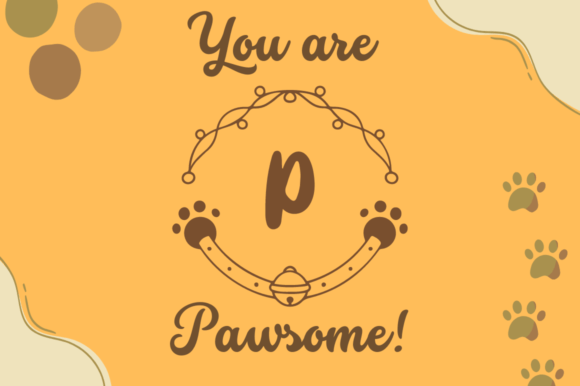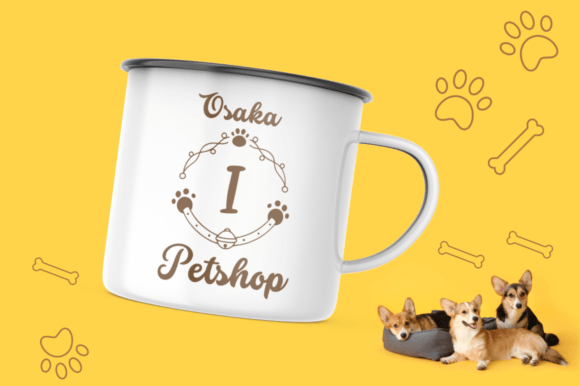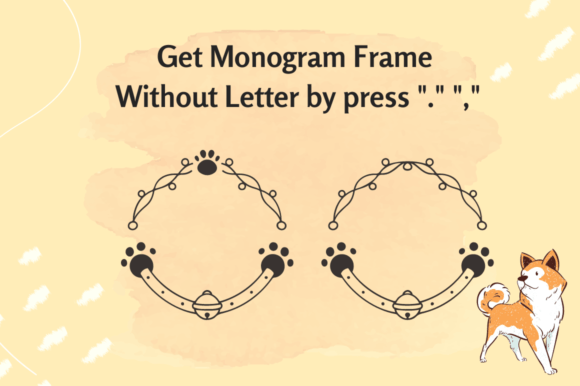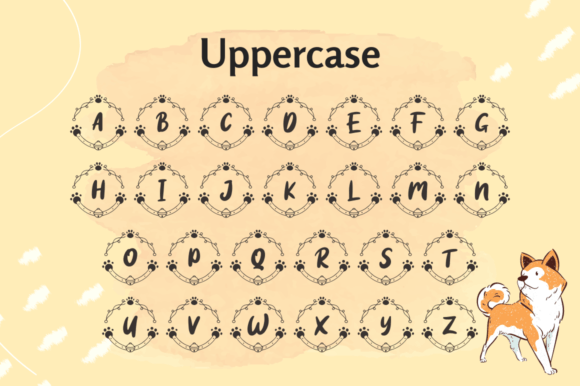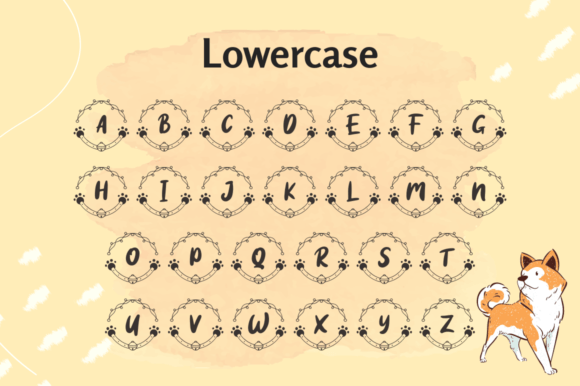
The Ultimate Guide to Good Boy Monogram Font: A Cute Decorative Font for Creative Projects
As a designer, I’m always on the lookout for the perfect font to bring my projects to life. Recently, I was working on a custom gift for a friend’s birthday – a personalized tote bag with a monogram. I wanted something cute, playful, and eye-catching, but I was struggling to find the right font. That’s when I stumbled upon the Good Boy Monogram Font, and it instantly stole my heart! 🐾
In this article, I’ll share my experience with this adorable font, its features, and how to make the most of it in your creative projects. Whether you’re a designer, crafter, or hobbyist, you’ll love the versatility and charm of Good Boy Monogram.
What I Love About Good Boy Monogram Font
Here’s what makes Good Boy Monogram Font a standout choice for your projects:
- ✨ Cute and playful design: Inspired by animals, this font is perfect for creating custom gifts for kids, pet lovers, or anyone who appreciates a touch of whimsy.
- ✅ Easy to use: With two styles to choose from, simply switch between uppercase and lowercase letters to access the different designs.
- 🌈 Versatile: Use it for textiles, home decor, gifts, or any project that requires a personal touch.
While Good Boy Monogram Font is an excellent choice, there are a few things to keep in mind:
- 🤔 Limited character set: As a monogram font, it’s designed primarily for single letters or short combinations. Be mindful of this when creating longer texts.
- ⚠️ Legibility at small sizes: Due to its decorative nature, the font may become less legible at very small sizes. Use it at larger sizes or for short texts.
The Story Behind Good Boy Monogram Font
Good Boy Monogram Font was designed with a passion for animals and a love for monograms. The creator aimed to craft a font that’s both playful and elegant, perfect for making custom gifts that bring a smile to the recipient’s face. Whether it’s a tote bag, a mug, or a personalized card, Good Boy Monogram Font is sure to add a touch of whimsy and charm.
| Can I combine Good Boy Monogram Font with other fonts? | Absolutely! Good Boy Monogram Font pairs well with clean sans-serifs or elegant scripts. Experiment with different combinations to find your perfect match. |